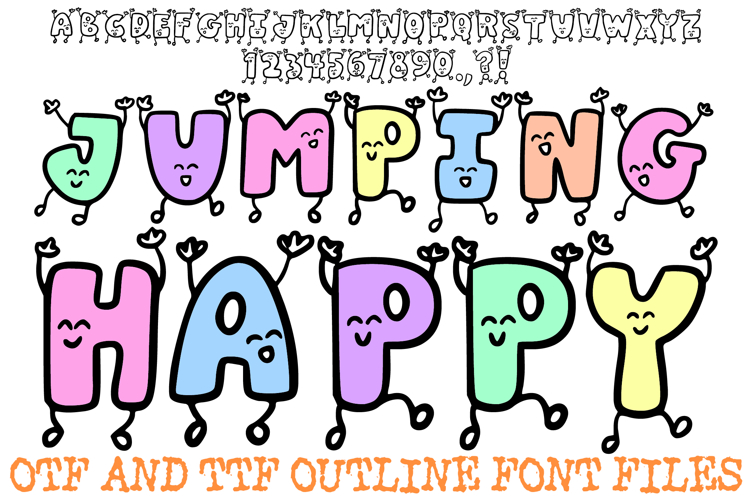
Jumping Happy Font Doodle Lettering Cartoon Characters ABC
Bring joyful energy to your designs with the Jumping Happy Font! This hand-drawn display alphabet features bubbly characters brought to life with adorable cartoon faces, tiny arms, and dancing legs, creating an instant cheerful atmosphere. It is the perfect choice for high-energy children's branding, whimsical party invitations, educational posters, and any creative project that needs a friendly, lively touch.
The unique, animated personality of each character ensures your headlines grab attention while maintaining a playful, artisan feel. Whether you're designing for a colorful school banner, quirky classroom decor, or creative digital scrapbooking, the Jumping Happy Font delivers a professional, whimsical look that stands out.
Why Your Designs Will Stand Out:
Animated Character Details: Every character features unique cartoon faces, arms, and legs that give them a distinct personality.
Bubbly Cartoon Silhouette: The thick, rounded block style ensures maximum readability for headlines and logos, even with the detailed character features.
Full Whimsical Set: Includes a complete set of uppercase letters (A-Z), numbers (0-9), and essential punctuation.